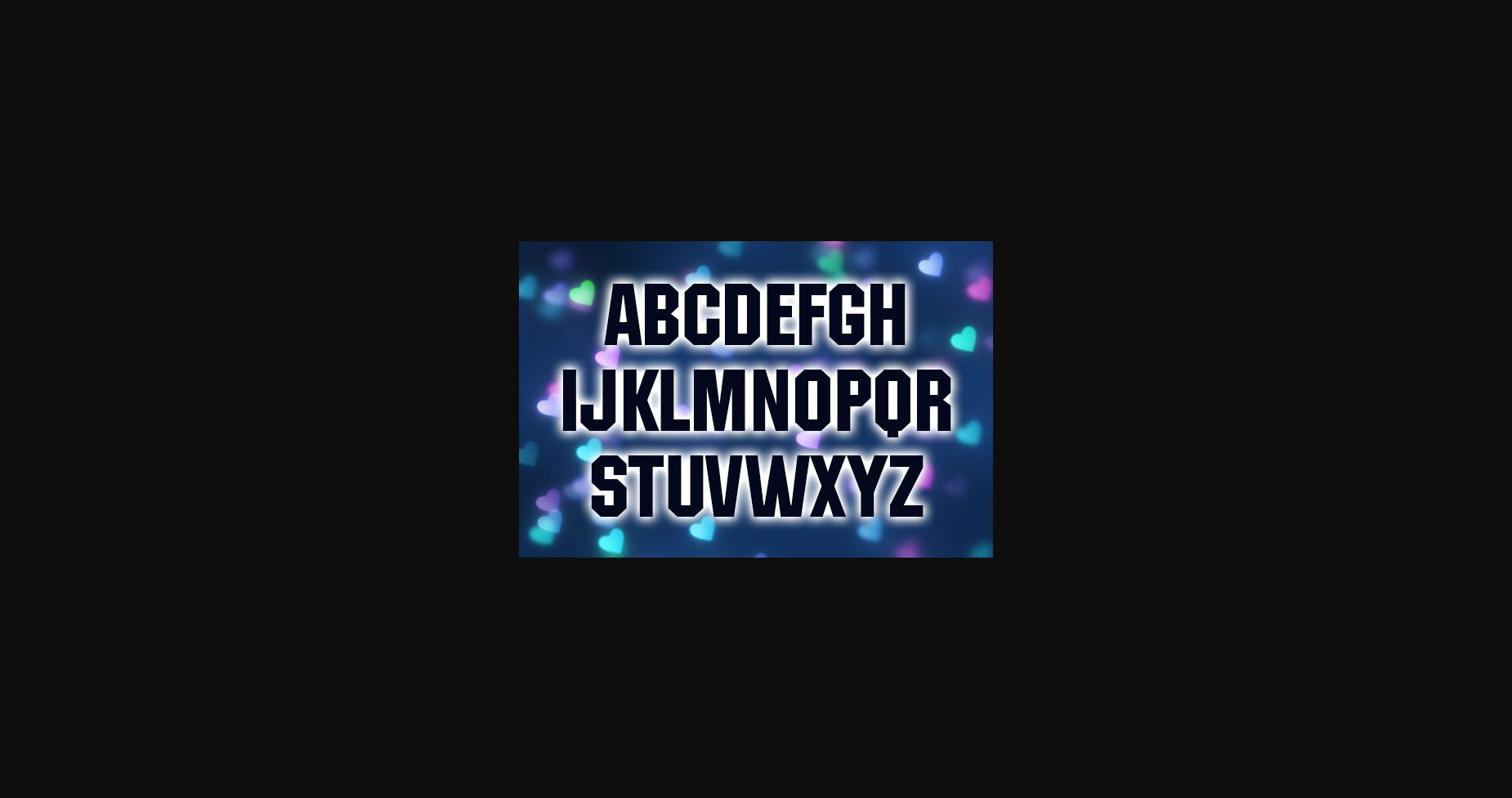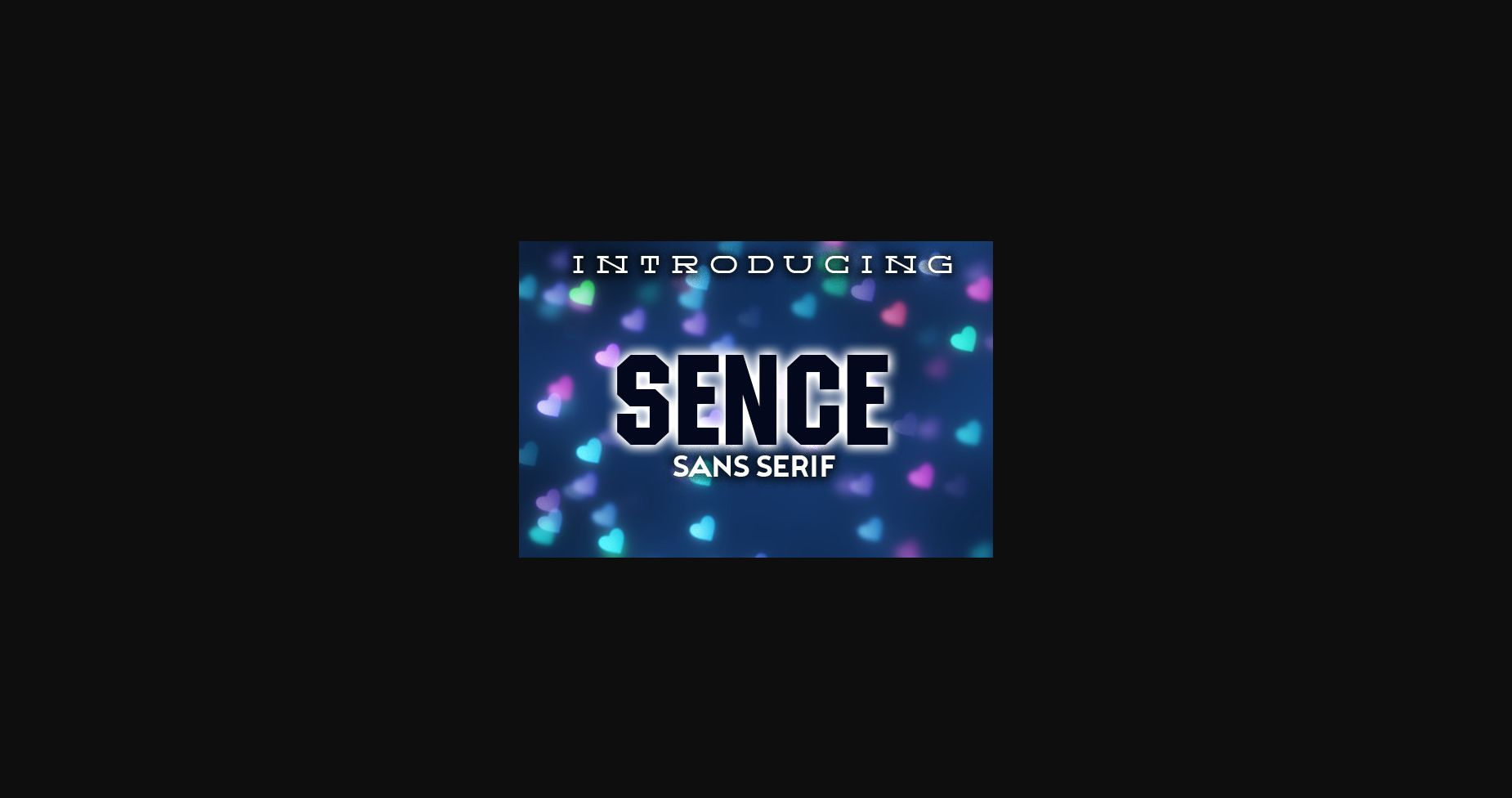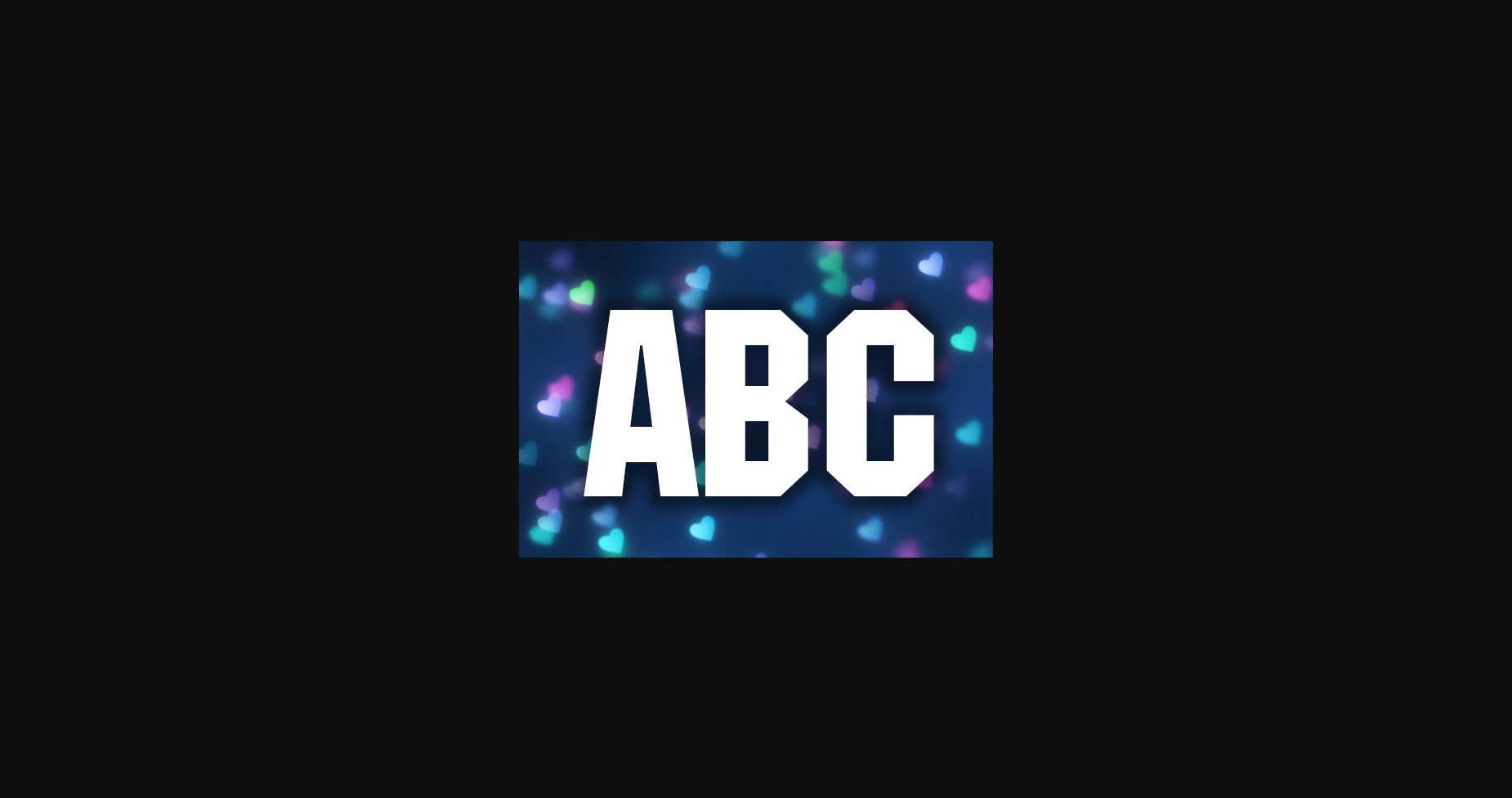
HomeSans Serif FontsSence Font Sans Serif Fonts Sence Font FacebookXPinterestWhatsApp 1 of 5 ... Sence Font Poster 2... Sence Font Poster 3... Sence Font Poster 4... Sence Font Poster 5... About Sence Font Sence is squarish sans serif typeface that will look stunning on any of your works. Use this font on posters, flyers and t-shirts. DOWNLOAD NOW People also explored Cosima Flowrite Meggie Font HT Gelateria Hello Beautiful Earth Font Abepka Font Deep Lake Font Hundred Ligatture Font Ice Cream Font 307 0 TagsSenceSence Font Previous articleMurisa Ulyana FontNext articleDejavu Font LEAVE A REPLY Cancel reply Comment: Please enter your comment! Name:* Please enter your name here Email:* You have entered an incorrect email address! Please enter your email address here Website: Save my name, email, and website in this browser for the next time I comment. Personal Use Free Hashira Mt Personal Use Free Read more about this font Arnitta Callina Personal Use Free Read more about this font Tanpax Personal Use Free Read more about this font Super Discount Personal Use Free Read more about this font BLOG Best Fonts for YouTube Videos: Make Your Thumbnails Stand Out Best Fonts for YouTube Videos: Make Your Thumbnails Stand Out Choosing the right font can make a massive difference in how your YouTube videos perform.... Using Fonts in Digital Marketing: Tips to Strengthen Your Brand Identity Top 7 Google Fonts Alternatives for Faster and Privacy-Friendly Web Design (2025) Where to Buy American Fonts Online in 2024